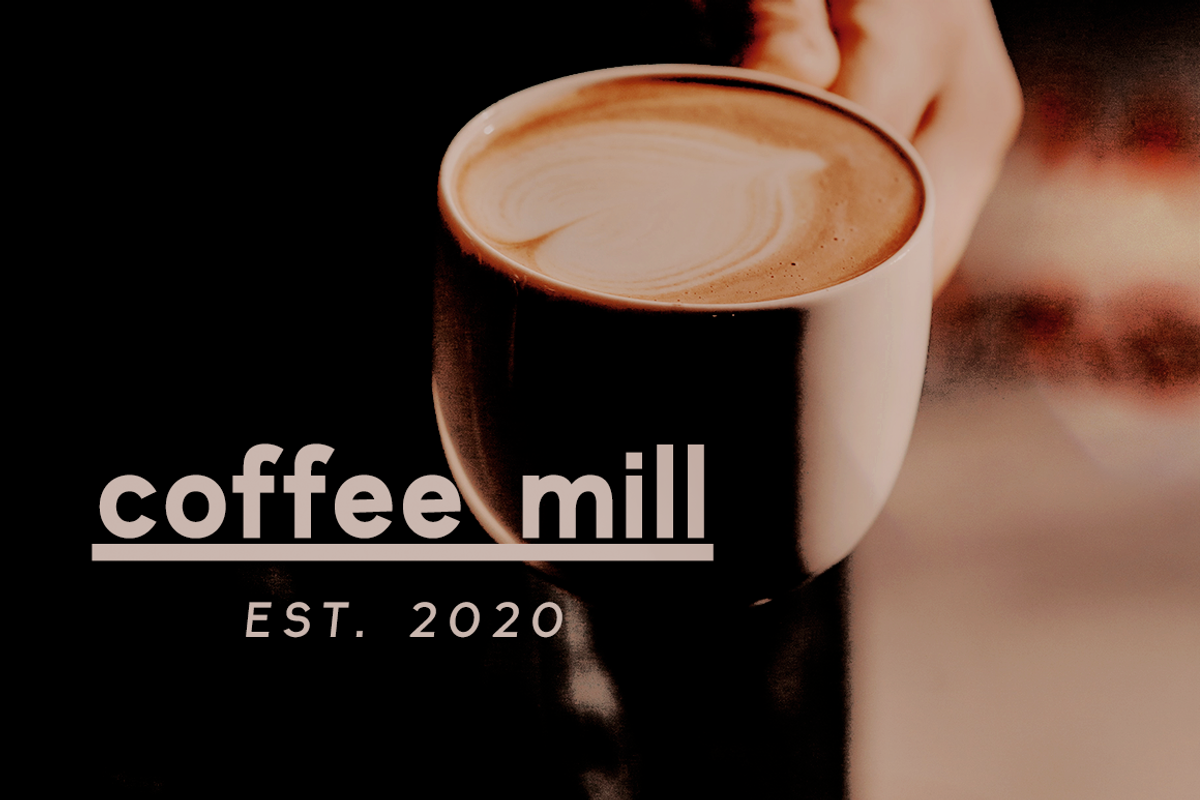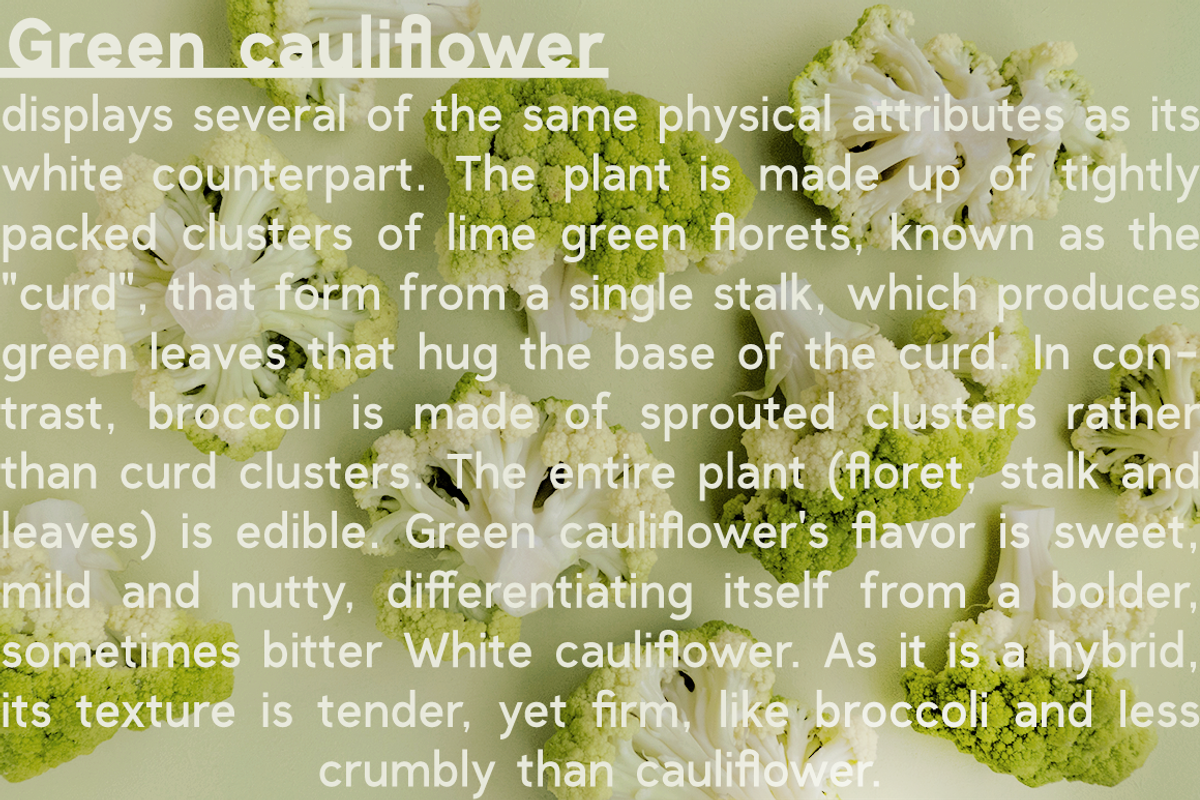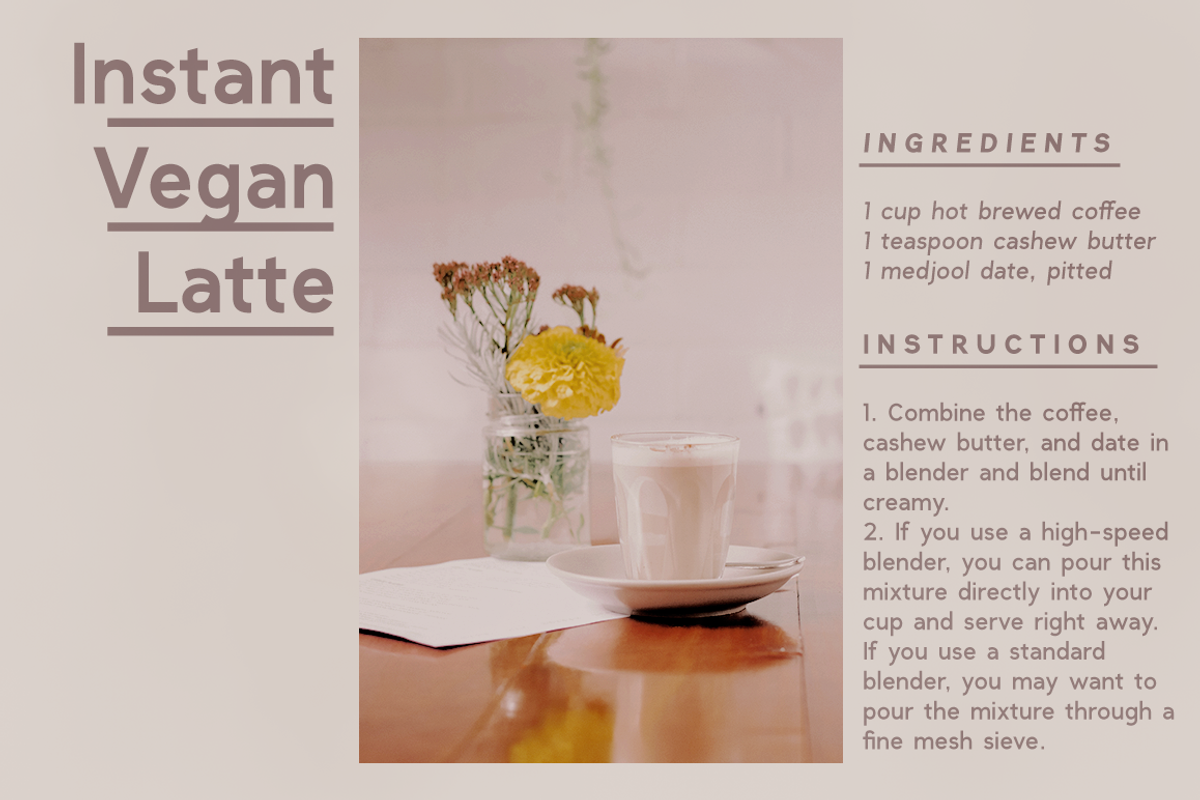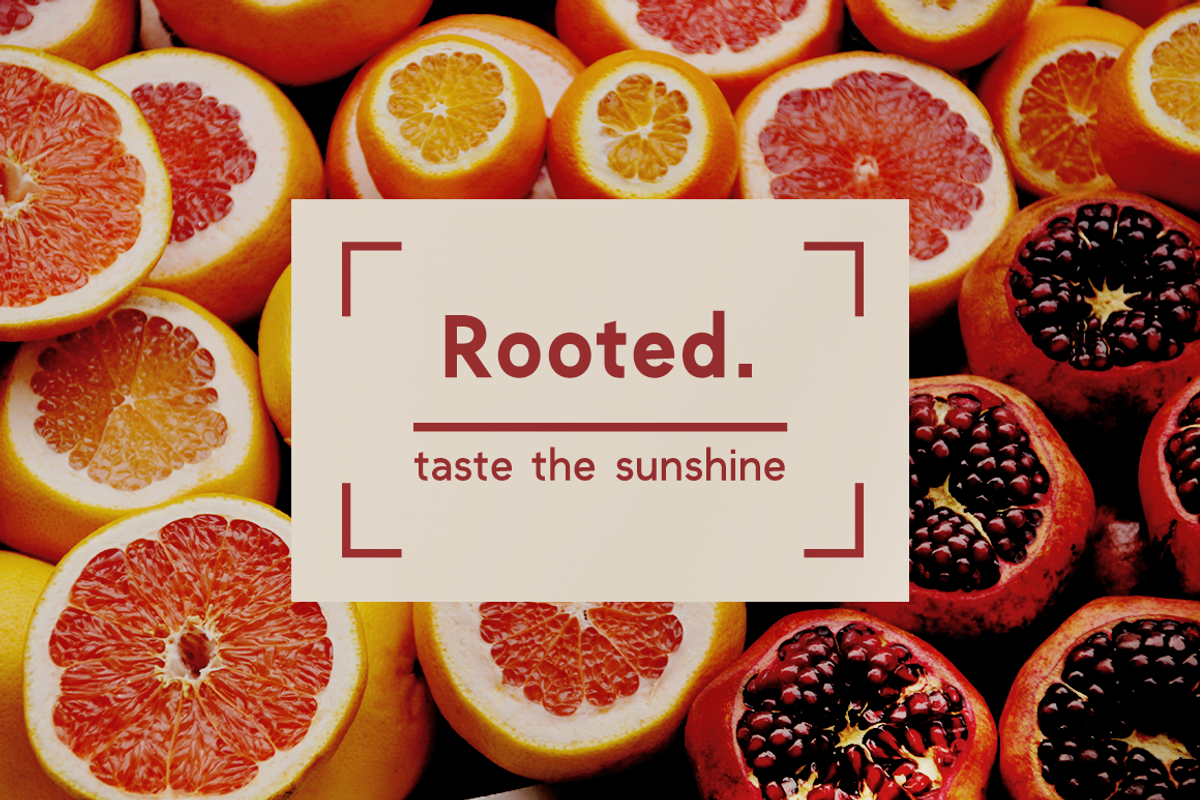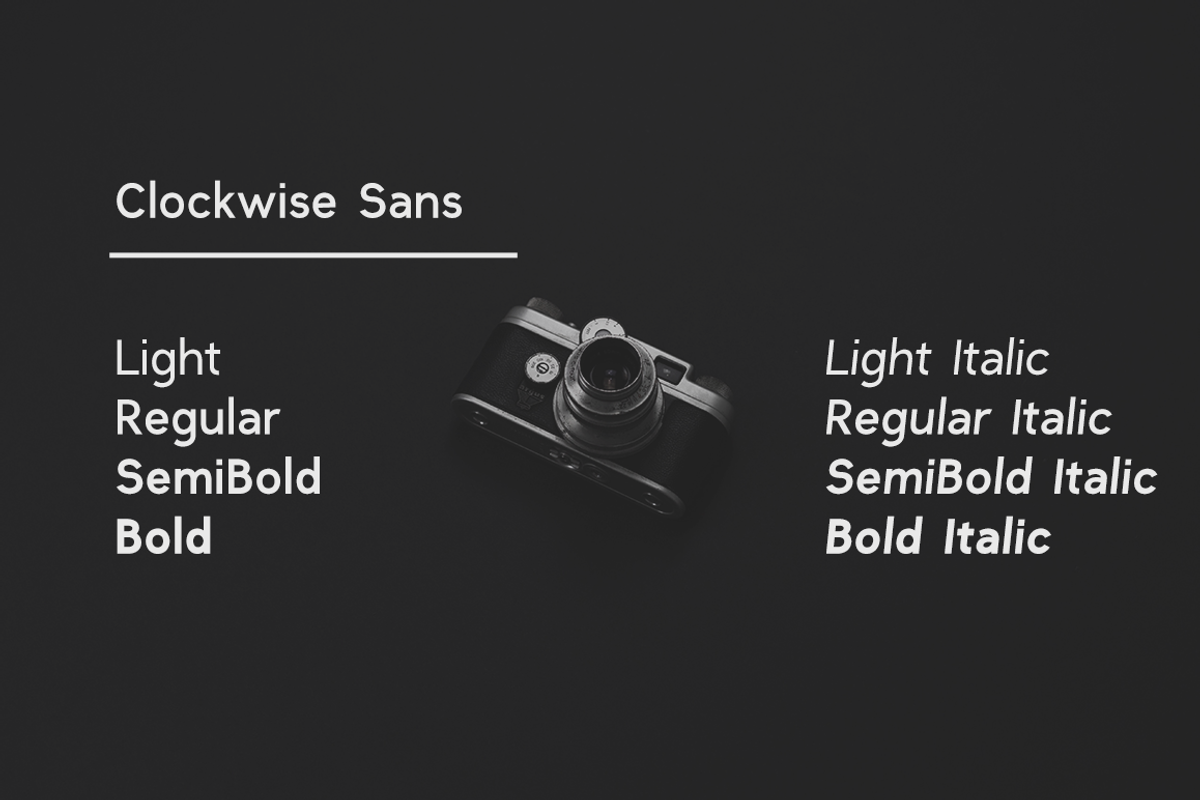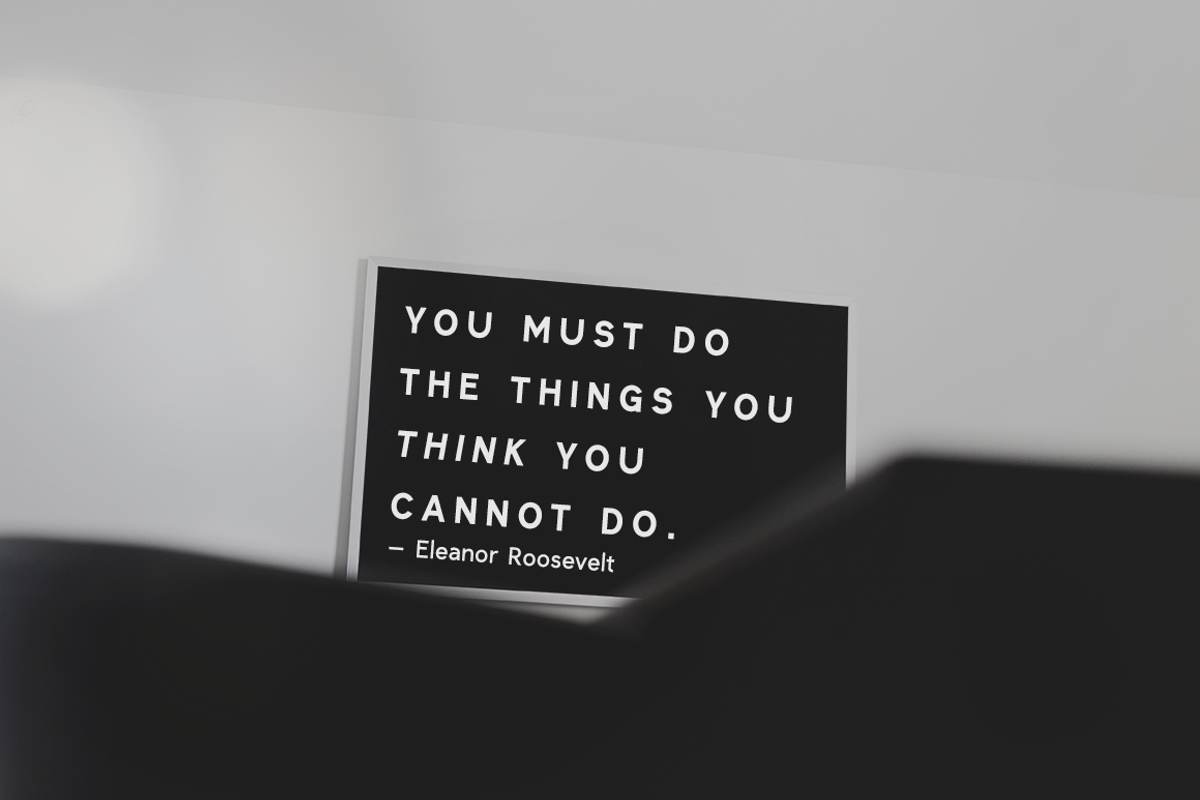
Clockwise essential sans serif font
Clockwise is a friendly sans serif font with 4 weights and italics. It includes over 315 glyphs, including:
And a bonus set of dashes and borders to help accent and decorate your text.
Clockwise is perfect for both texts and titles, and pairs beautifully with other fonts already in your library, especially handwritten and serif fonts. Use it in everything from logotypes to social media posts, website and magazine layouts to poster designs.
- It includes over 315 glyphs, including: Small caps Ligatures And a bonus set of dashes and borders to help accent and decorate your text.